Some designs look better when the lettering feels a little imperfect. Brush and script fonts keep the drag of the brush, uneven edges, quick loops, and changing stroke widths that make hand lettering feel alive. A bold dry-brush face can push a poster toward something raw and energetic. A softer signature script feels more personal on a logo, invitation, or package.
I keep this kind of font around for the moments when clean geometric type feels too controlled. This collection includes more than 100 brush, calligraphy, handwritten, and signature fonts, with newer finds first and older favorites later in the list. You can move from heavy marker lettering and textured paint strokes to elegant calligraphy, retro sign-painter styles, and casual handwriting, then open the original source from the font name.
Start Here: 8 Brush & Script Fonts Worth a Look
| Drip Brush Font | Liquid brush display lettering |
| Odachi | Rough, bold brush headlines |
| Salted Mocha | Hand-drawn brush script |
| Hensa | Logos, packaging, greeting cards |
| Smooch | Romantic and beauty-focused designs |
| ST Pinkman | Casual signature lettering |
| Mystic Pen | Elegant calligraphic display type |
| Sprightly | Friendly connecting handwriting |
Brush & Calligraphy Fonts
Drip Brush Font
A liquid brush display font with alternate letters controlled through Caps Lock. Its irregular painted shapes suit large headlines and short display text.
Cybrogpunk Brush Font
A cyberpunk-inspired brush font with a personal-use free license.
SUPERNOVA Brush Font
VELOCITY VIPERS Brush Font
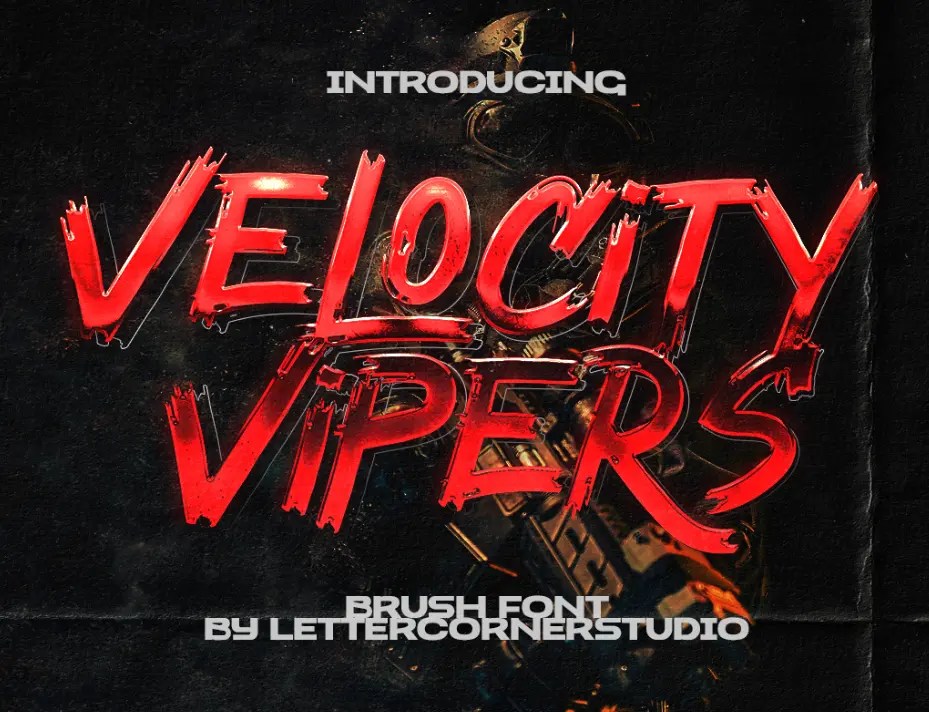
SOUNÓS Font
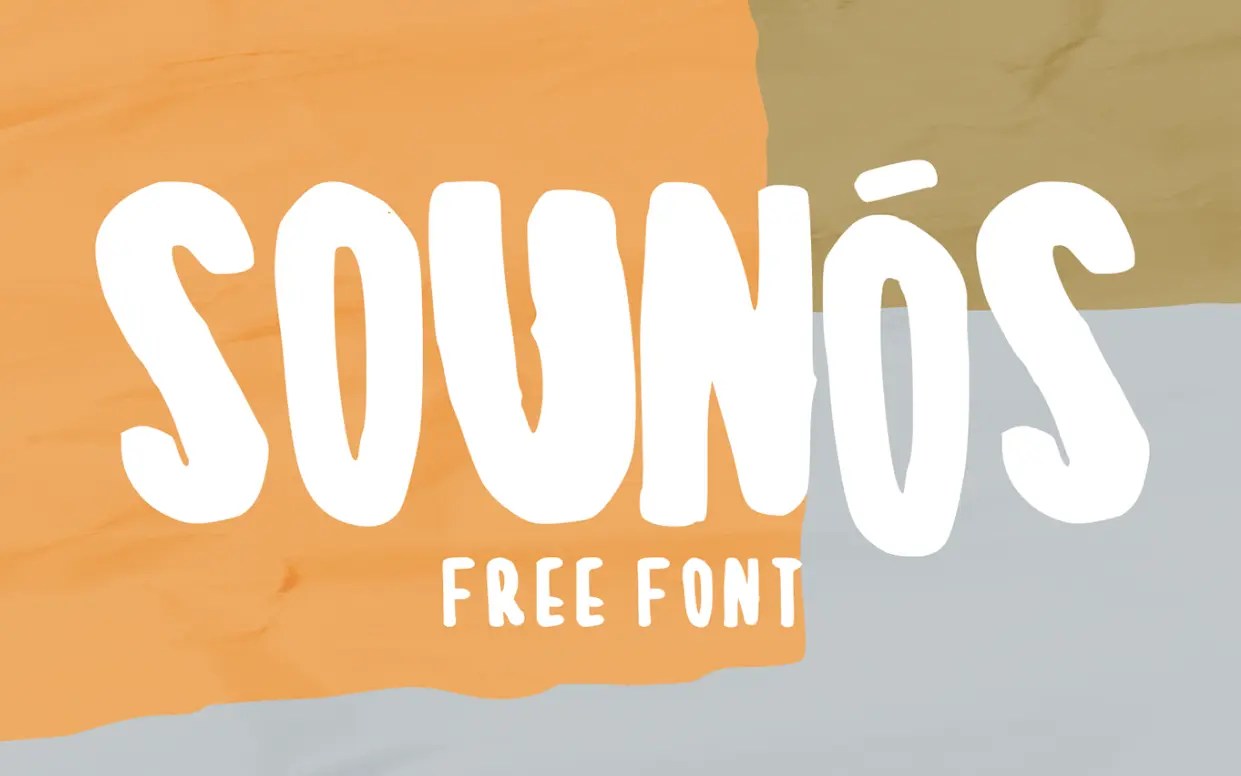
Brushelva Font
A sans-serif brush display font offered free for personal use.
Better Brush Font
Lunok Brush Font
An all-caps marker font with alternates and ligatures for varied hand-lettered shapes. A good choice for posters, apparel graphics, fashion branding, and short promotional headlines.
Griffin Brush Font
A brush display font offered free for personal use.
Vegabond Free Brush Font
Hot Ink Free Font
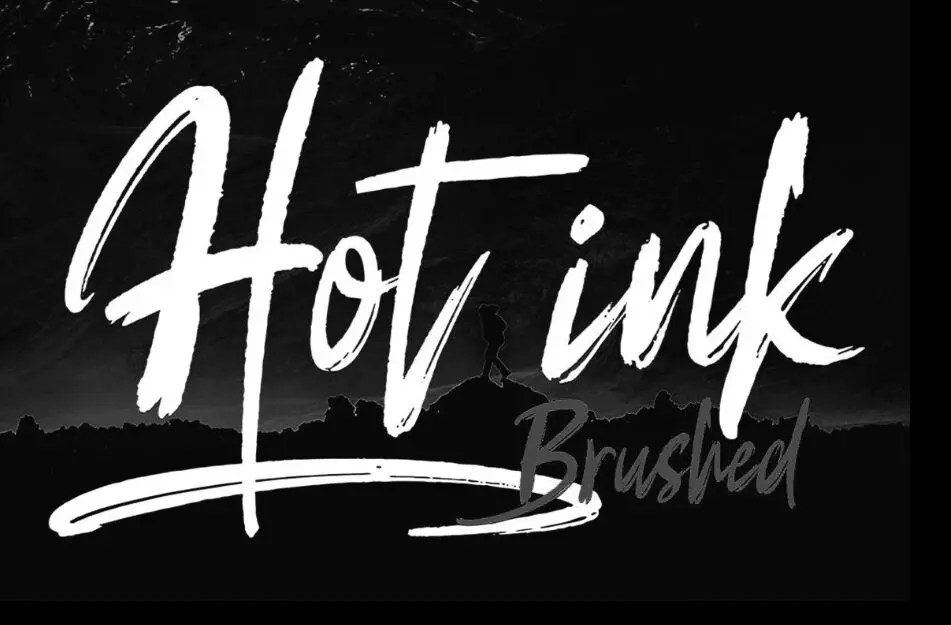
Buttergone Brush Font
Yokai Rough Brush Font
A rough brush font with alternate letters controlled through Caps Lock. Its heavy texture suits large display lettering.
Taki Taki Brush Font
A Chinese-inspired brushed display font with an expressive, hand-painted character.
Hiatus Free Font
An elegant brush font released for commercial use.
AlphaBee Free Display Font
A handwritten brush display font with a free download.
Going Under Free Font
A rough brush font with a distressed handwritten texture.
HUF Free Font
Oliver Blush Calligraphy Font
A modern calligraphy font with ligatures, start and end swashes, numerals, punctuation, and multilingual characters.
Rehat Free Font
A brush font released for commercial use.
PROTEST Brush Font
A brush-and-grunge display typeface for posters, flyers, presentation titles, and bold headlines.
MALER Font
Dexotick
A handwritten brush typeface for expressive display lettering.
Valden Brush Font
Kulan Free Font
Oh Now Brush Font
THRONE SVG & OTF Paintbrush Font
A heavily textured paintbrush typeface supplied in SVG and regular OpenType versions for realistic painted lettering or clean vector output.
Stiverx Brush Script
UPIRDRY Water-Brush Font
Big Snow Free Font
Rogeu Brush
A brush font released free for personal and commercial projects.
Herupzor Typeface
Oyget Brush Font
UNDERBRIDGE WET FONT
Abuget Brush Font
Odachi Free Brush Font
A bold rough-brush display face released for commercial projects.
Paint the Sky Free Brush Font
OCEAN SIX Free Brush Font
A bold handmade display face built from scanned and vectorized acrylic brush strokes, with uppercase, lowercase, and special characters.
Balmy Free Brush Font
Eufoniem Free Font
Israt Semi-Brushed Handwritten Font
A free semi-brushed handwritten font with an informal hand-lettered appearance.
Hello! Font
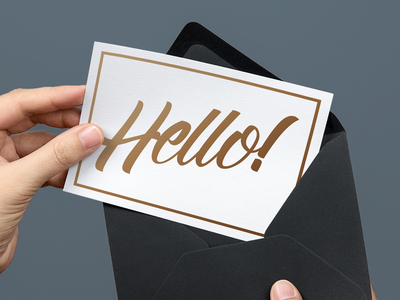
Salted Mocha
A hand-drawn brush script typeface with lively strokes and an informal handwritten rhythm.
Leafy Extended Brush Font
A water-brush typeface with upgraded glyphs, Cyrillic support, Latin Extended characters, and lowercase letters.
Luciano Free Font
Hensa Free Brush Script Font
A hand-painted brush script for logos, quotes, packaging, and greeting cards. Hensa includes uppercase and lowercase letters, punctuation, numerals, ligatures, and several swashes.
Hamurz
A brush-style typeface with a free version on DaFont. Review the author note and current license before commercial work.
Script, Signature & Handwritten Fonts
Smooch Script Font
A rounded script with glossy, lipstick-like strokes and a romantic handwritten rhythm. It suits wedding stationery, beauty branding, packaging accents, greeting cards, and boutique logos.
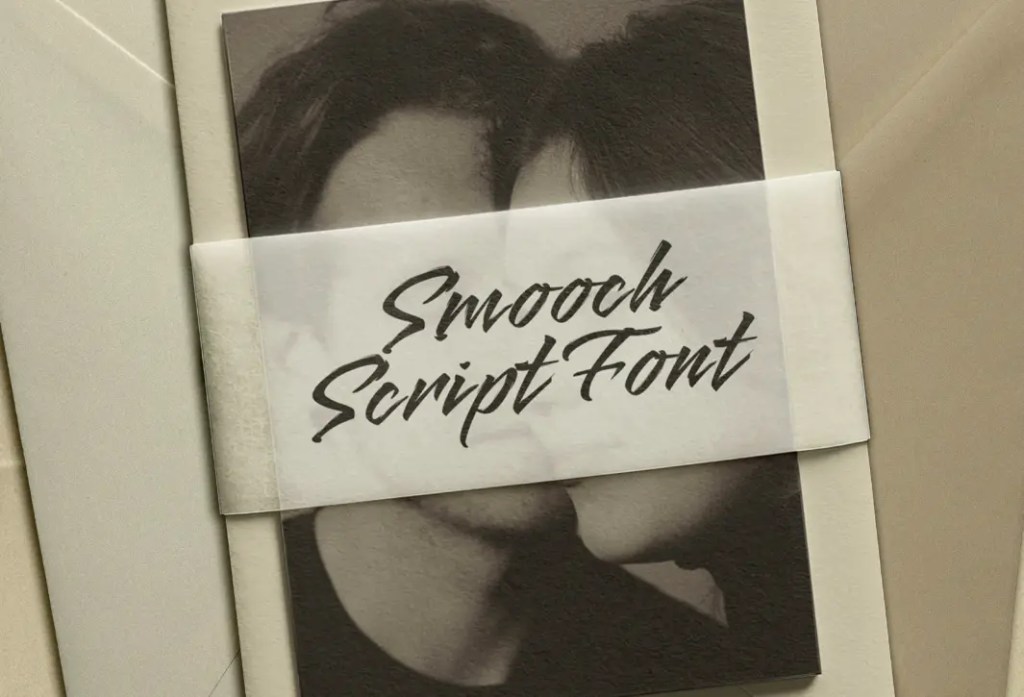
ST Pinkman Signature Script Font
A free signature script with loose handwritten strokes and an informal personal feel.
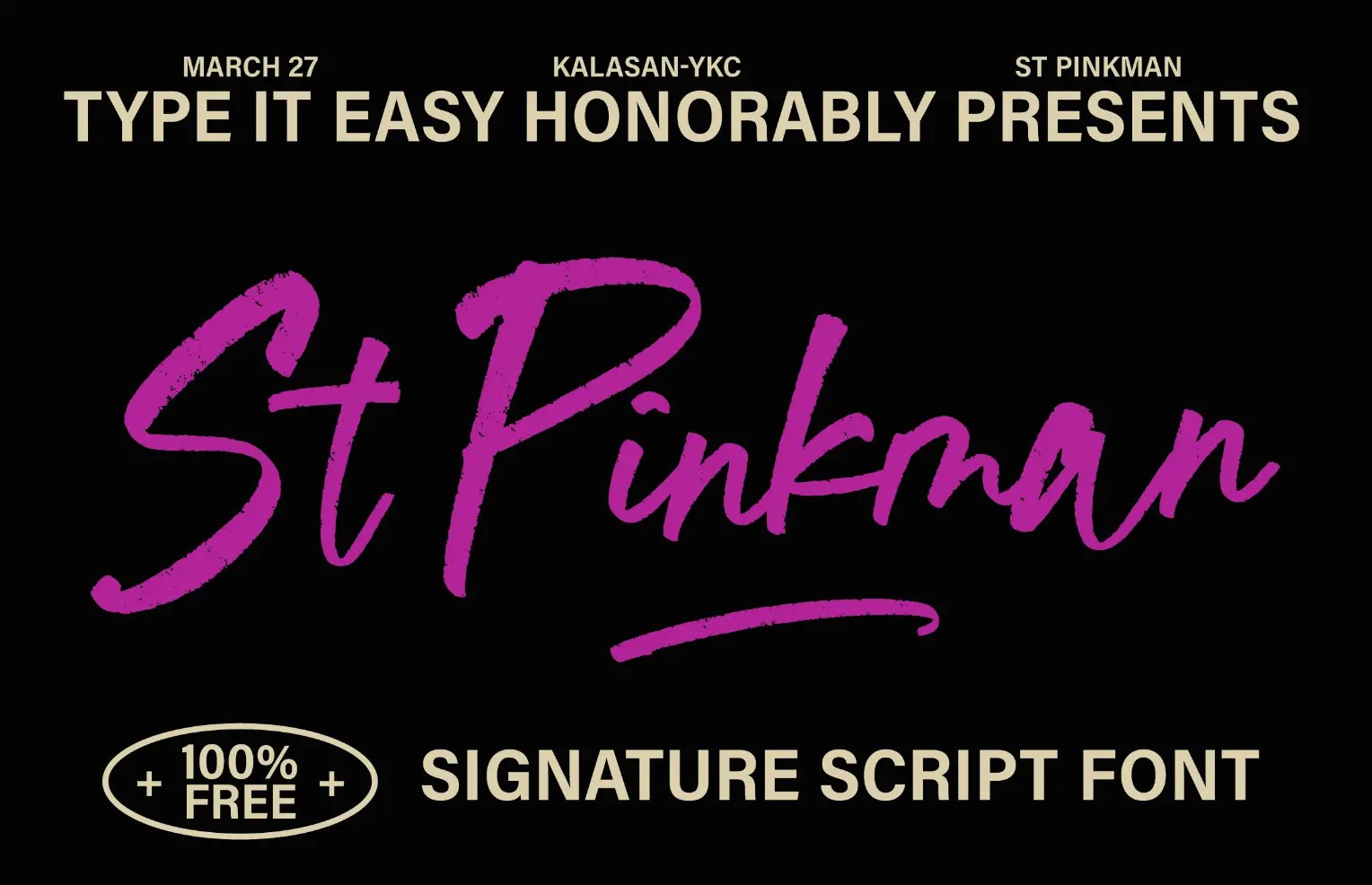
Break Down Free Font
A bold, rounded script with retro curves for expressive headlines, logos, branding, and playful poster typography.
Carnoll Handwritten Font
A smooth handwritten font with soft curves and a casual, polished feel for invitations, branding, quotes, and social graphics.
HISTORIC Free Font
A hand-drawn font inspired by traditional school writing, with natural strokes and a deliberately imperfect appearance.
Hey Bae Signature Script
The Winter Scripture
A decorative script with a seasonal, festive character for holiday cards and winter-themed lettering.
Hiswolley Elegant Signature Font
An elegant signature font built around fluid strokes, graceful curves, and a personal handwritten look.
Luminas Script Font
A clean monoline script offered free for personal use.
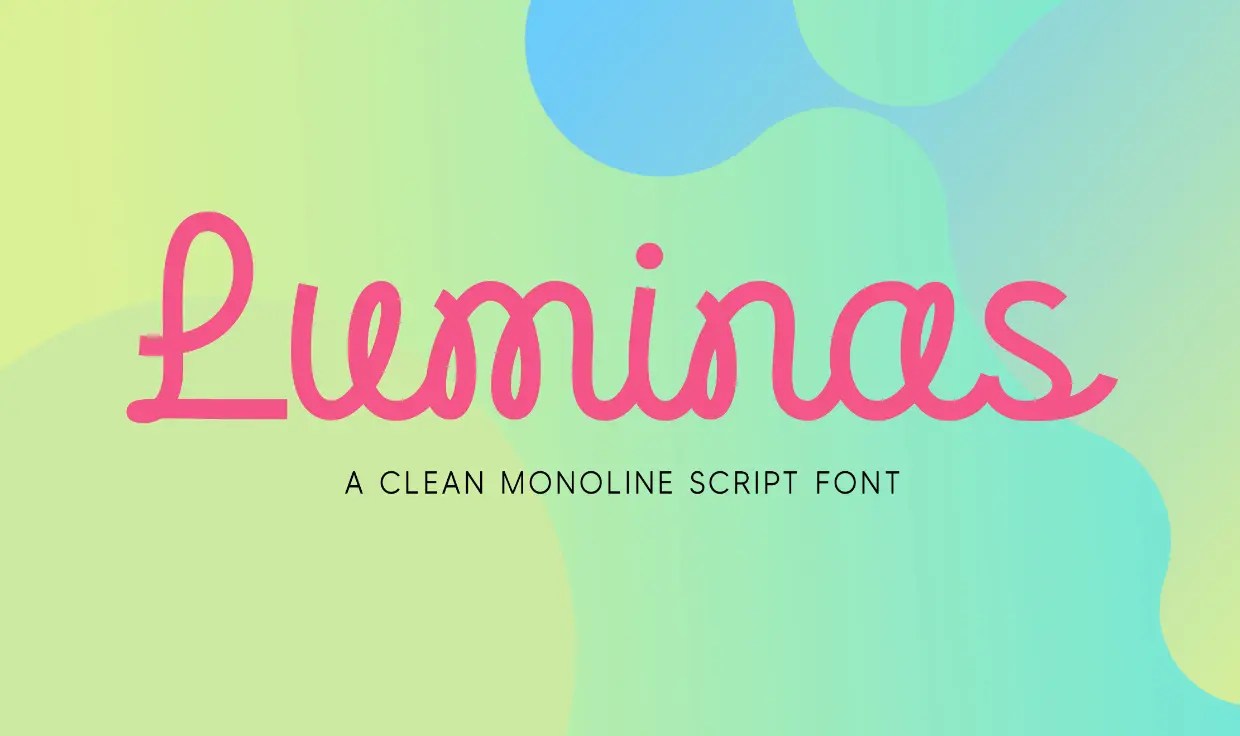
Daxar Signature Font
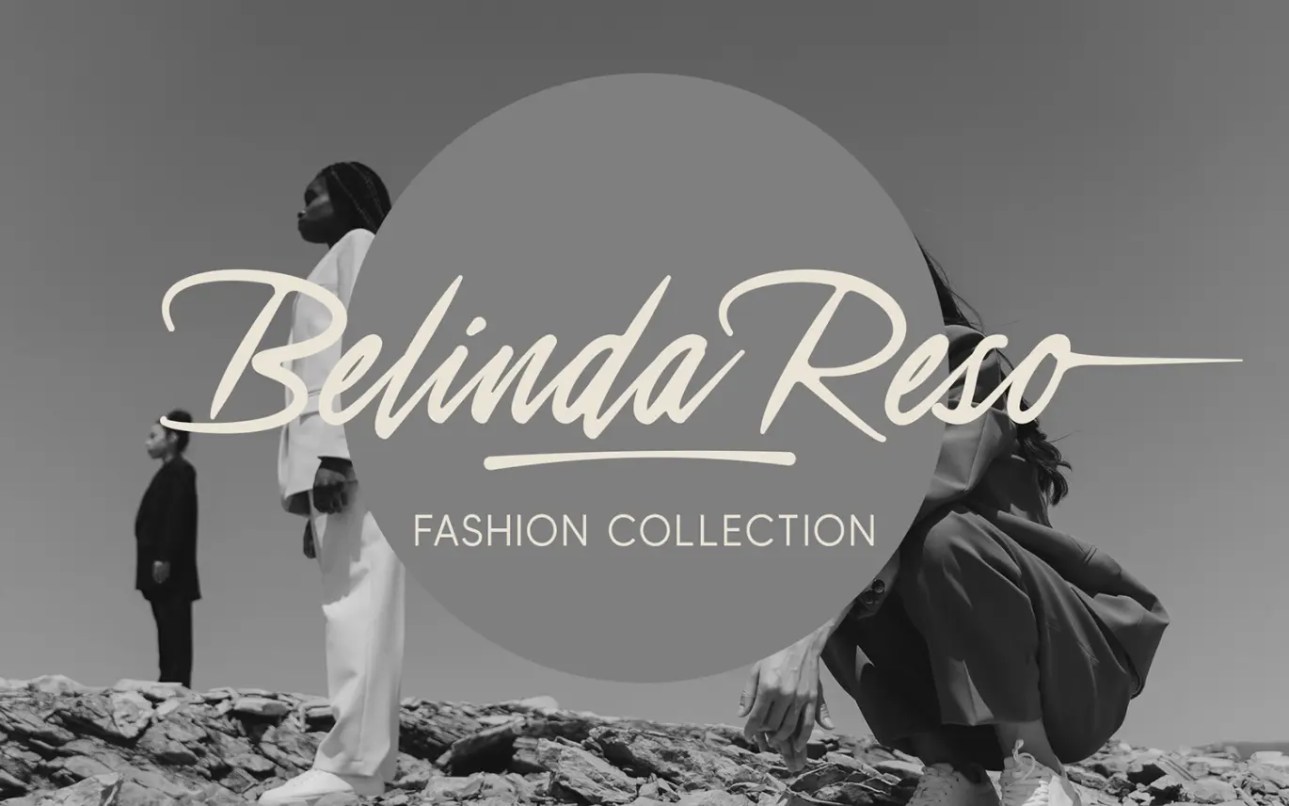
Sinttya Free Script Font
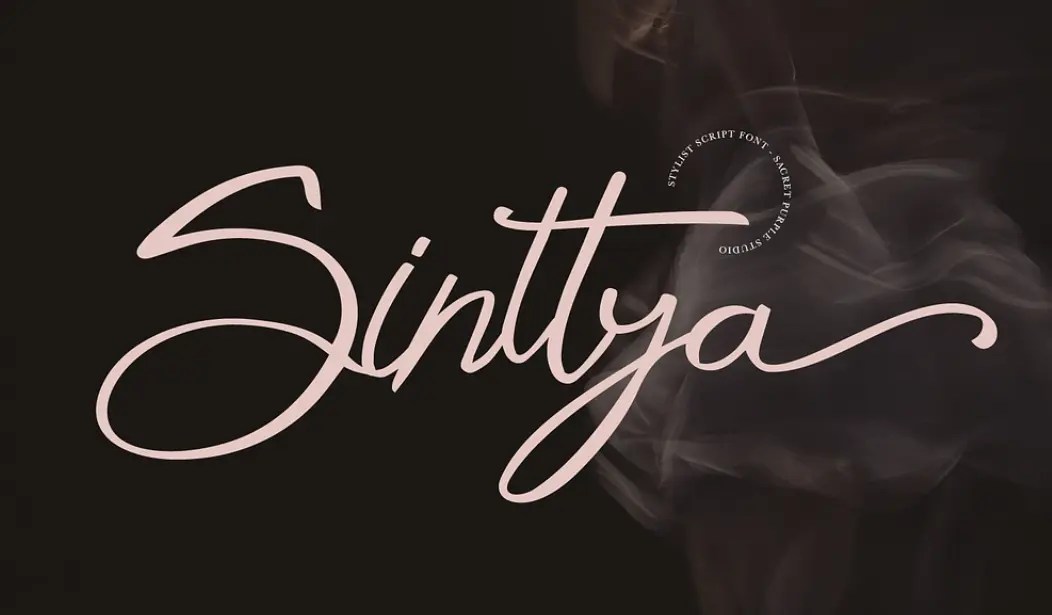
Battoh Script Font
A decorative script typeface offered free for personal use.
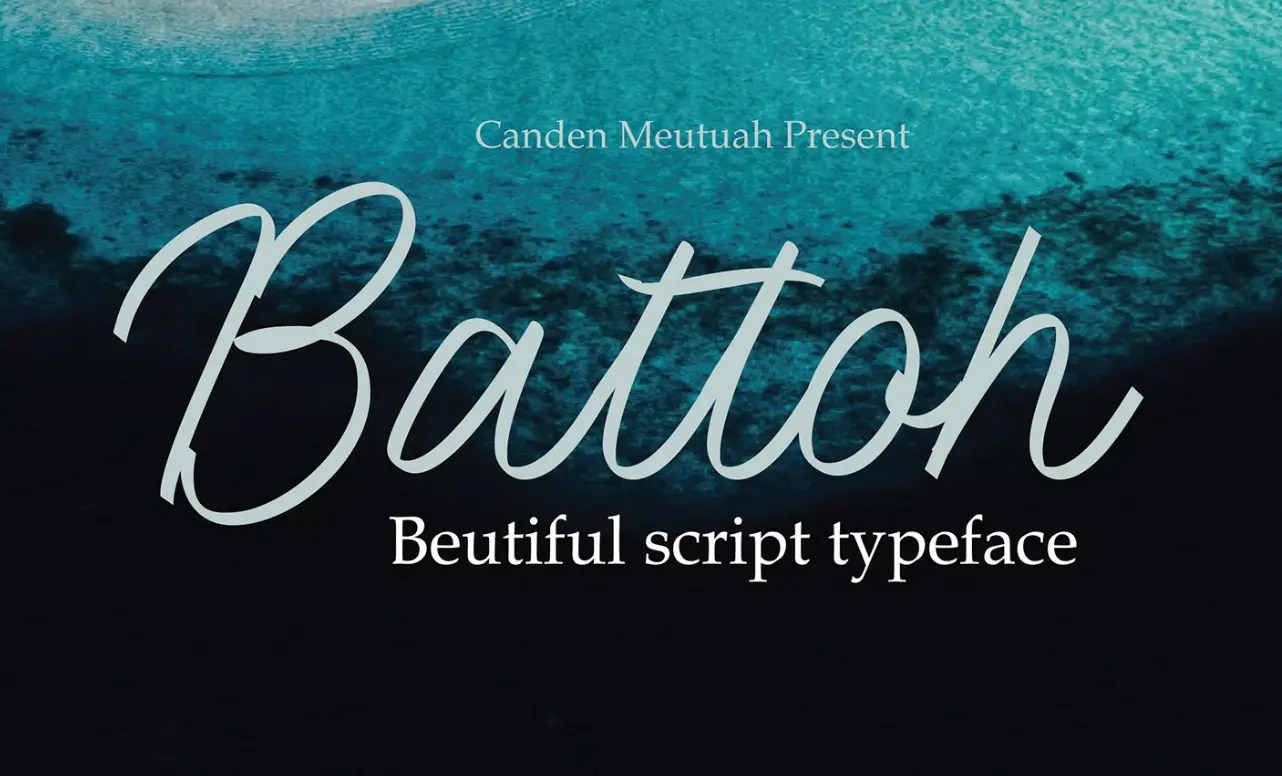
Kidal Modern Script Font
Mystic Pen Script Font
An elegant calligraphic script with fluid strokes for invitations, logos, brand marks, and other refined display work.
Ampun Suhu Hand-Drawn Script Font
A retro hand-drawn script released for commercial use.
Sheanday Signature Script
Rinature Signature Font
A signature font with three uppercase variations plus lowercase stylistic alternates for varied handwritten wordmarks and display text.
Poetic Script
A minimal script font offered free for personal use.
Bohemik Bouncy Script
A playful bouncy script supplied in regular and outline styles for logos, quotes, invitations, and cheerful display lettering.
Famous Handwritten Brush Script
A casual script with inky curves and deliberately imperfect edges that preserve a hand-lettered appearance.
Retro Magaze Bold Script Font
Sunshine Mind Script Font
Chi Free Handwritten Font
A bubbly handwritten typeface released for personal and commercial use.
White Lotus Handwritten Script Font
ALEXASTYLE Modern Script Font
Maylani Free Handwritten Font
A soft, sweet handwritten typeface offered free for personal use. Its casual lettering suits invitations, greeting cards, quotes, thank-you cards, and social posts.
Ikigai Free Handwritten Font
A soft handwritten typeface with an elegant, relaxed character.
Free Handwritten Script Font
A handwritten script font offered free for personal use.
Hallyeet Font
A handwritten font released for commercial use.
Tracker Font
Everyday Signature Font
A casual signature font offered free for personal use.
Celinea Signature Font
A stylish signature script with a relaxed handwritten feel.
Andala Retro Script Font
A retro script font for vintage-inspired headings, logos, and display lettering.
Margherita Free Script Font
Erika Richardo Script Font
Brett Hartley Signature Font
A handwritten signature font for logos, wedding stationery, packaging, labels, watermarks, invitations, and other personal-style lettering.
Evelyn Script Font
Wanita Cantik Monoline Script Font
Fabriola Free Font
Salindia Handwritten Font
A handwritten signature-style font with a clean personal look.
Felipse Beautiful Signature Font
Battley Handwritten Signature Font
Samoell Free Font
Gabuek Script
A script font released free for personal and commercial projects.
Idana Luisa Font
Larries Font
Handwritten Typeface
PASSIONATE Free Font
VIKSI Free Script Font
A free script font with expressive handwritten strokes. Check the current Behance project for its latest license terms.
Reey Free Script Font
A handwritten script suited to fashion graphics, e-commerce branding, blogs, and other designs that need a personal lettering style.
Esteh Script Font
A free script font with fluid handwritten letterforms. Check the source project for current usage terms.
Tahu! Script Free Font
Stay Classy Free Font
Apalu Brush Script
Duvetica Free Font
Sprightly Connecting Script Font
A partially connecting handwritten script released free for personal and commercial use.